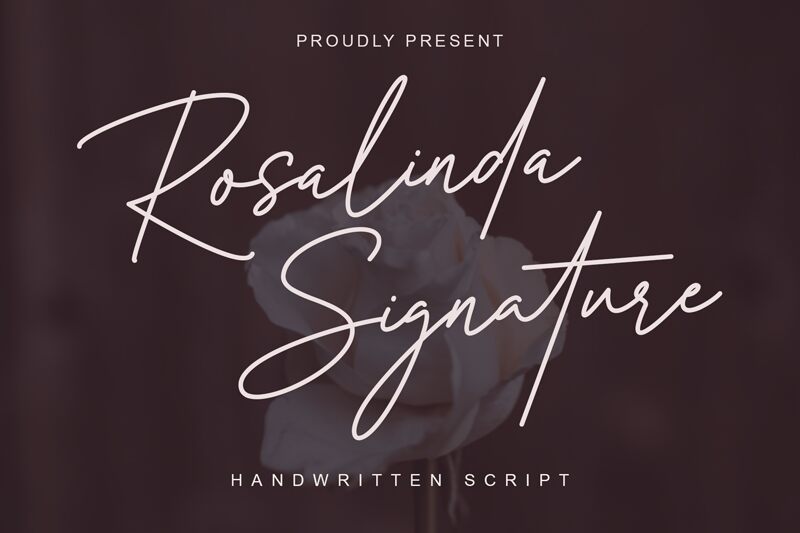
Rosalinda Signature
Rosalinda Signature by MJB Letters exudes a personal touch with its handwritten style that mirrors the intimate flair of a bespoke signature. Its flowing, graceful strokes convey an elegant and sophisticated charm, perfectly suited for invitations, branding, and upscale advertising. This font's light touch resonates with an air of exclusivity and finesse, making it a go-to choice for designers aiming to impart a sense of individuality and high-end appeal in their projects.
Whether gracing the pages of a wedding invitation or the logo of a luxury brand, Rosalinda Signature brings a unique blend of personalization and style to every design it adorns.